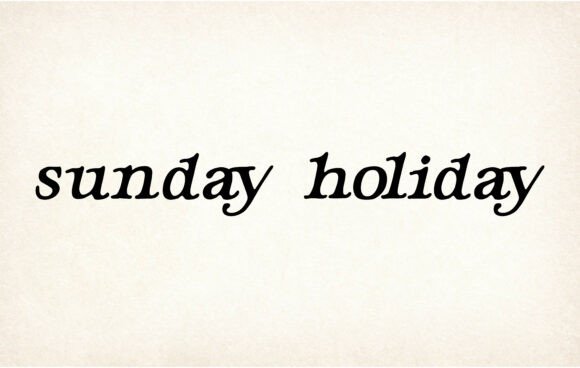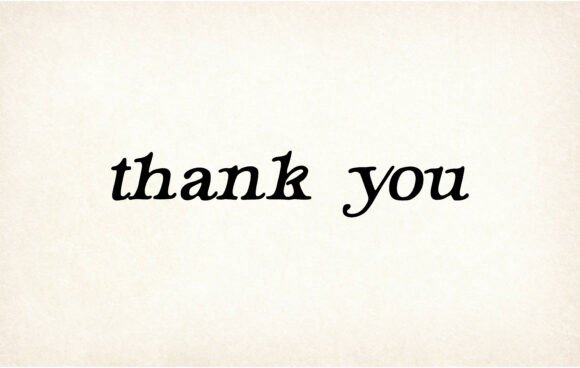
The Perfect Typography for Your Next Creative Project
Enter Buffalo Font, a beautifully crafted typeface designed to elevate your creative work to new heights. With its clean lines, elegant curves, and exceptional legibility, Buffalo Font is the perfect companion for designers looking to take their projects to the next level. Whether you’re crafting magazine headlines, designing t-shirts, or creating social media graphics, Buffalo Font is the versatile and reliable choice that will make your designs shine.
Buffalo Font Key Features
- Unique Characteristics: Buffalo Font is known for its distinctive, bold, and modern design, featuring a unique combination of rounded and angular shapes that make it perfect for headlines and titles.
- Font Width: The font has a medium to wide width, making it ideal for use in titles, headings, and other large-scale typography.
Buffalo Font Review
The Buffalo Font is a unique and quirky typeface that catches the eye. I was immediately drawn to its fun and playful personality, and I can see how it would be perfect for brands that want to stand out from the crowd.
Here are some things that work well about the Buffalo Font:
- ✨ Customizable: The font comes with a range of customization options, including different weights, widths, and styles. This means that designers can tailor the font to fit their specific needs.
- ✨ Versatile: The font can be used for a wide range of projects, from logos and branding to packaging and signage.
- ✨ Fun and playful: The font’s unique personality makes it perfect for brands that want to inject some fun and personality into their design.
- ⚠️ Limited legibility: In certain situations, the font’s unique shape and style can make it difficult to read, particularly in small sizes or at a distance.
- ⚠️ Not suitable for formal designs: The font’s playful personality may not be suitable for formal or professional designs, such as business reports or academic papers.
Overall, I think the Buffalo Font is a great choice for designers who want to add some personality and fun to their designs. While it may have some limitations, its unique personality and versatility make it a valuable addition to any designer’s toolkit.
Tips for Getting the Most Out of Buffalo Font
To get the most out of Buffalo Font, use it in bold and italic styles to add emphasis and create visual interest.
Experiment with different font sizes to create a balanced and harmonious design.
Buffalo Font is ideal for:
- Brand logos and identities
- Editorials and opinion pieces
- News and magazine articles